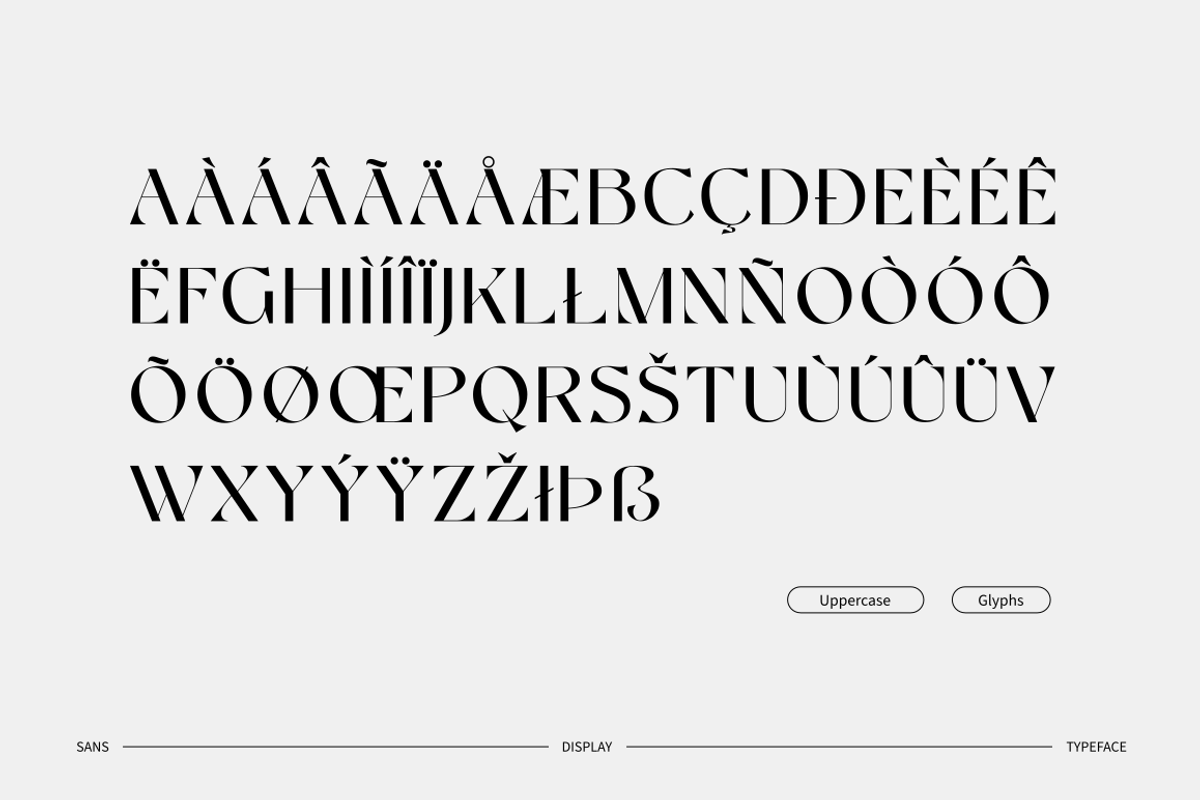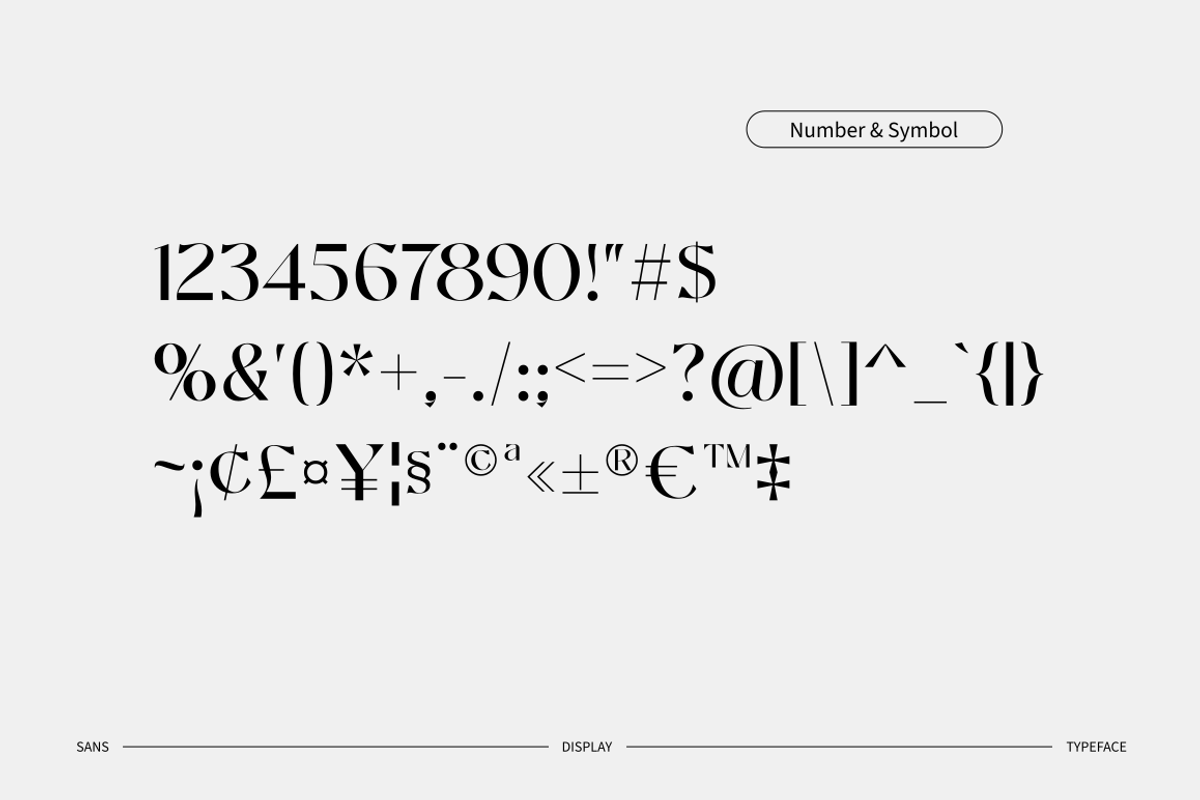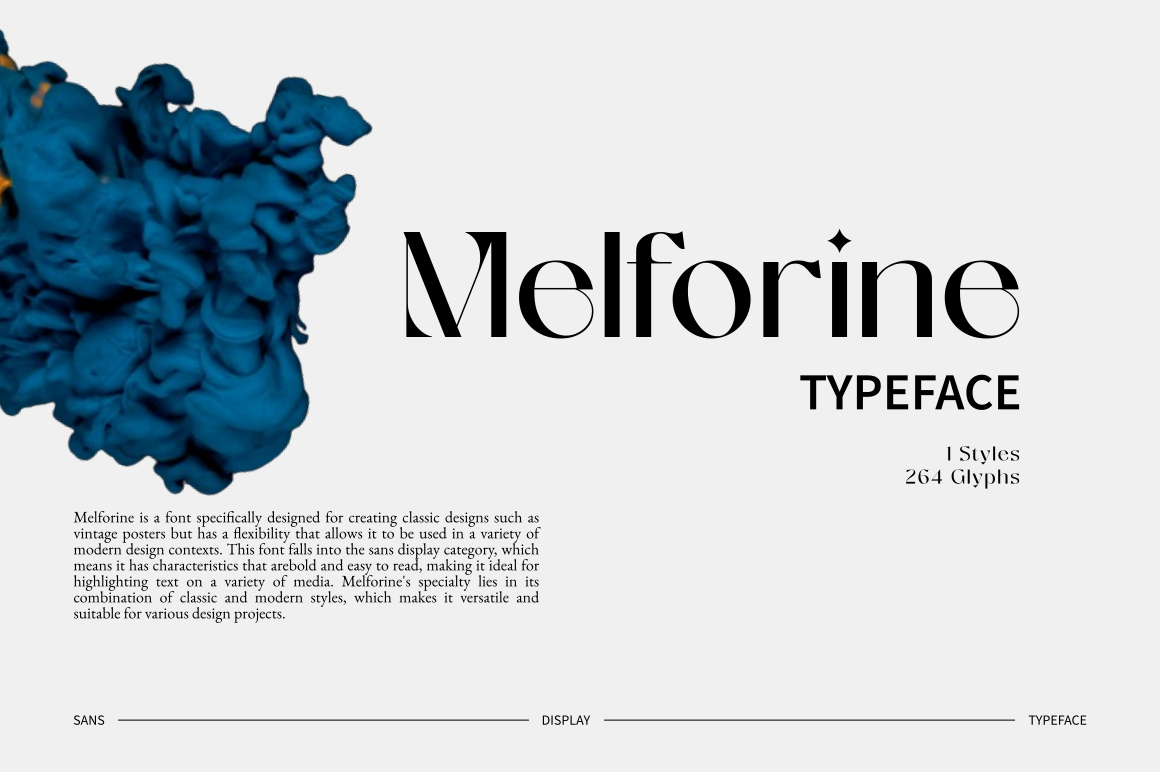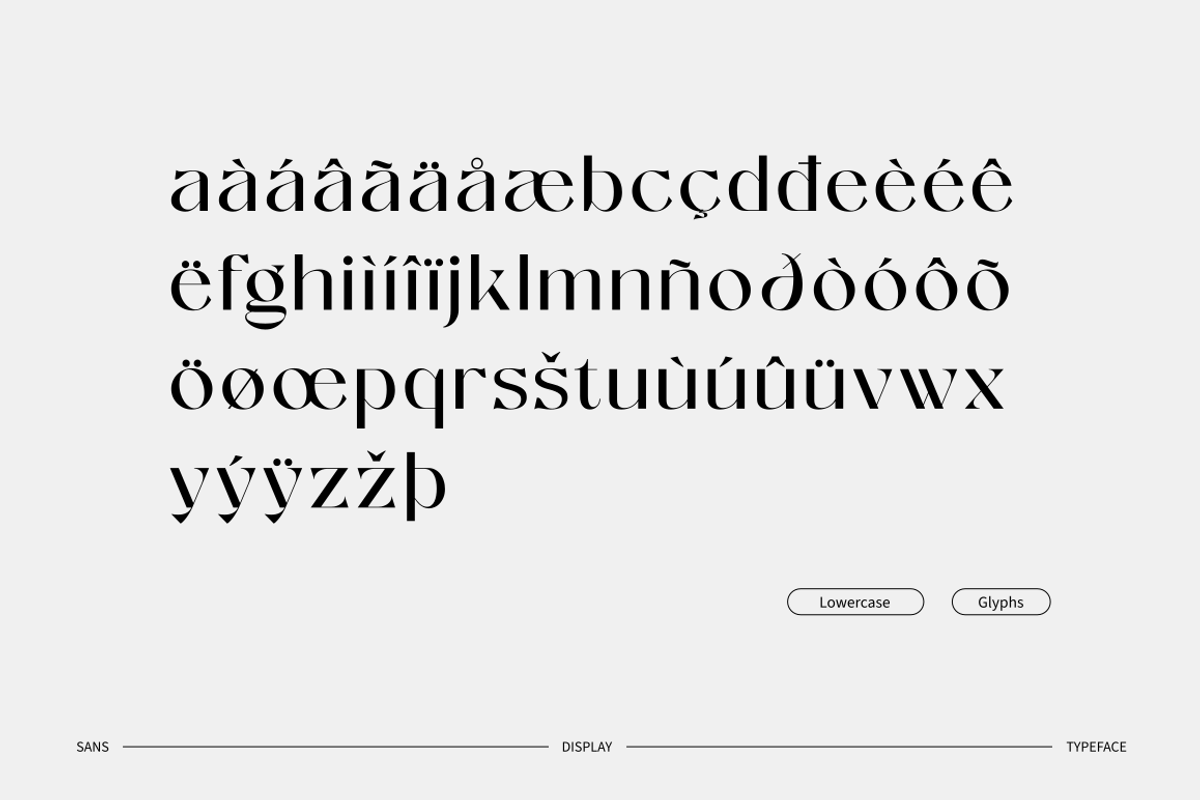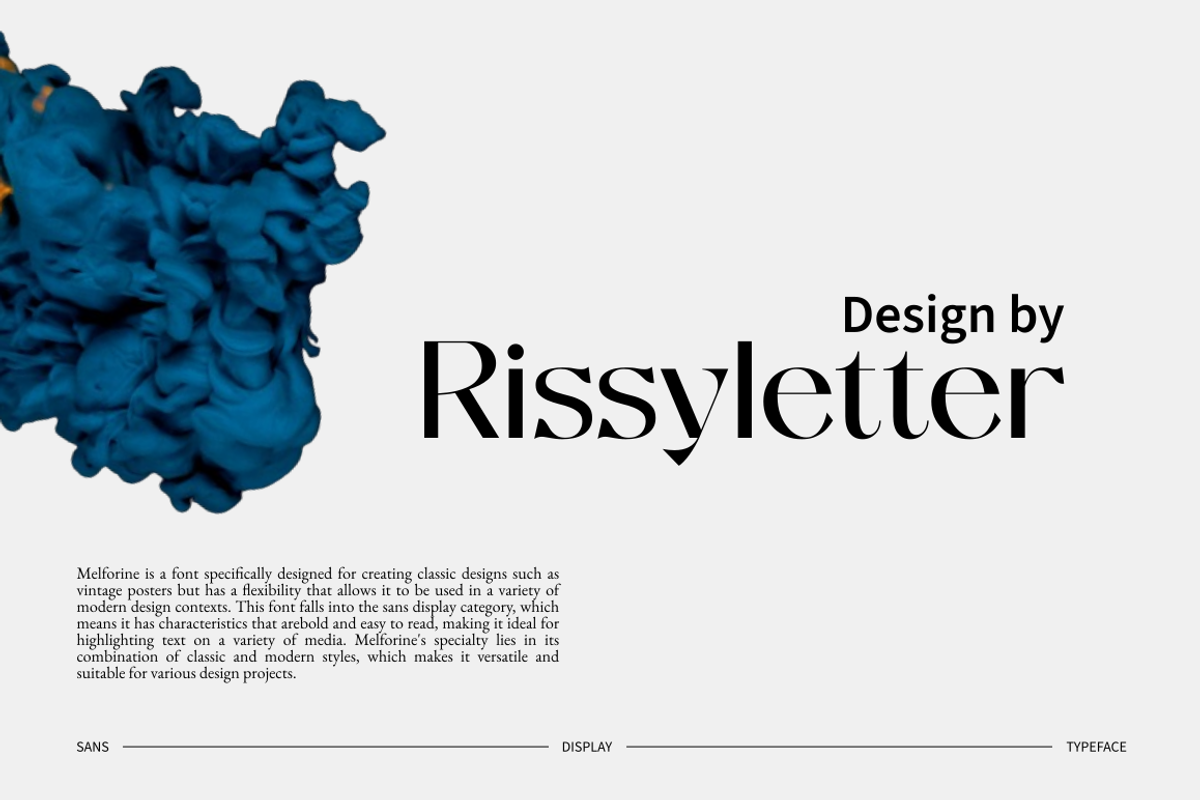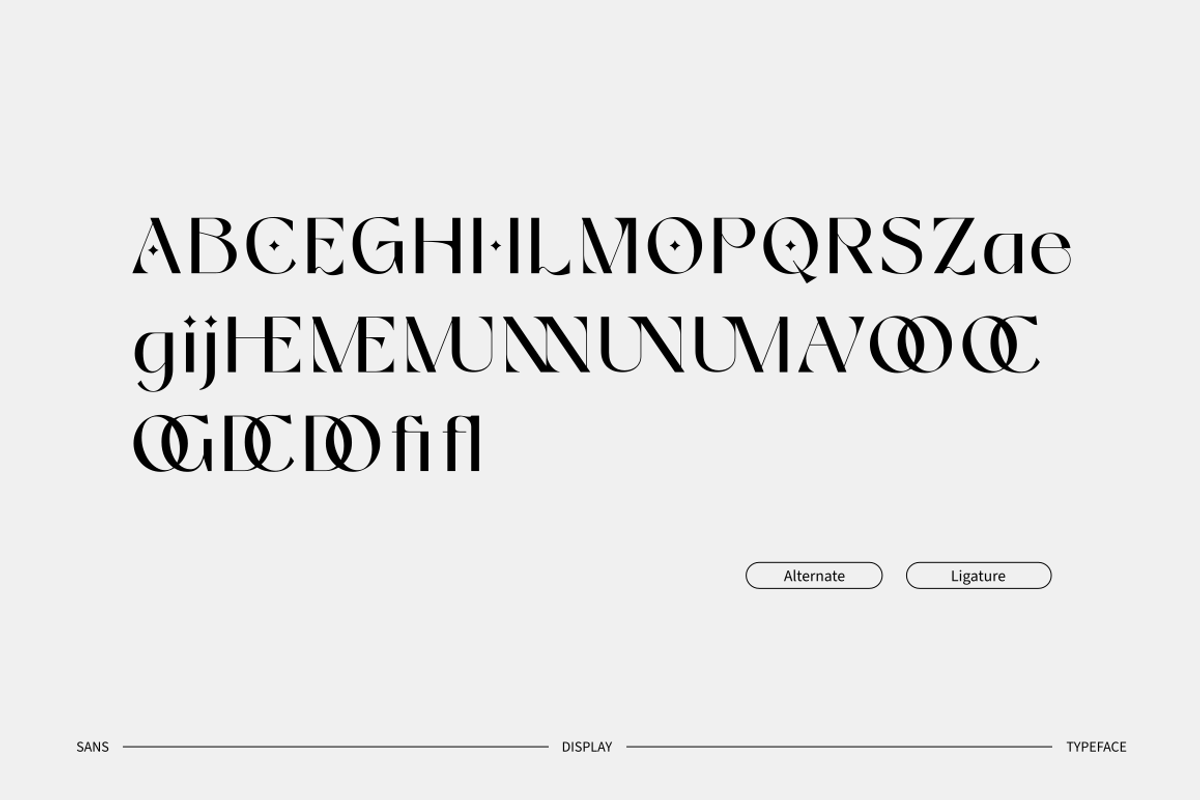
Melforine | History Display Font
Melforine is a font specifically designed for creating classic designs such as vintage posters, but has a flexibility that allows it to be used in a variety of modern design contexts. This font falls into the sans display category, which means it has characteristics that are bold and easy to read, making it ideal for highlighting text on a variety of media. Melforine’s specialty lies in its combination of classic and modern styles, which makes it versatile and suitable for various design projects.
In its classic design, Melforine is able to give a strong nostalgic feel, reminding us of the era of vintage posters with an elegant and artistic aesthetic touch. This makes it the perfect choice for projects that want to provide a retro feel or reinforce a sense of history, such as vintage-themed event posters, product packaging designs with a classic touch, or even interior designs that embody the concept of a bygone era.
However, Melforine is not just limited to using classic designs. Its clean and modern sans display style makes it very relevant in a contemporary design context. This font can be easily integrated into various modern designs such as corporate branding, digital advertising, social media, and websites. The combination of classic and modern elements in Melforine creates a unique visual appeal, ensuring that text using this font will always stand out and attract attention.
With all these advantages, Melforine is a versatile font choice and is able to bring various types of designs to life with its distinctive touch. Whether you are designing an artistic vintage poster or want to add an elegant modern touch to your project, Melforine will always deliver satisfying results.
FEATURE
- Alternative Styles
- Uppercase and lowercase letters
- PUA Coded Characters – Easy to access without additional design software.
Multilingual support for 68 languages including Afrikaans, Albanian, Asu, Basque, Bemba, Bena, Breton, Catalan,Chiga, Cornish Danish, Dutch, English, Estonian, Faroese, Filipino, Finnish, French, Friulian, Galician, German, Gusii, Icelandic, Indonesian, Irish, Italian, Kabuverdianu, Kalenjin, Kinyarwanda, Luo, Luxembourgish, Luyia, Machame, Makhuwa-Meetto, Makonde, Malagasy, Manx, Morisyen, North, Ndebele, Norwegian, Bokmål, Norwegian,Nynorsk, Nyankole, Oromo, Portuguese, Quechua, Romansh, Rombo, Rundi, Rwa, Samburu, Sango, Sangu, Scottish, Gaelic, Sena, Shambala, Shona, Soga, Somali, Spanish, Swahili, Swedish, Swiss, German, Taita, Teso Uzbek (Latin), Volapük, Vunjo, Zulu